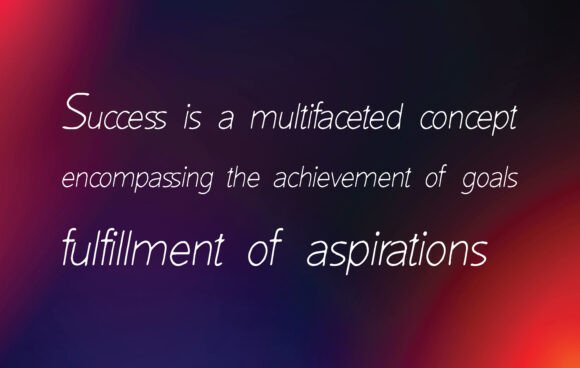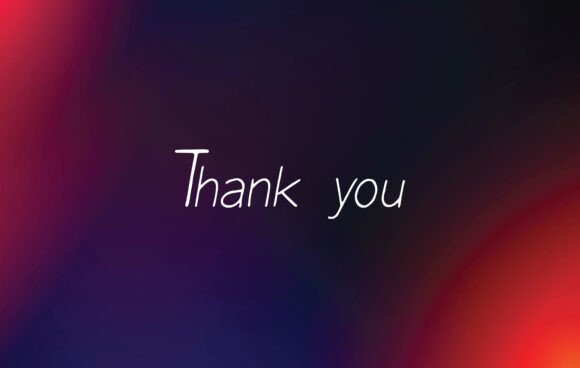
Gharial Font: Elevate Your Creative Projects with this Stunning Handwritten Font
Are you a designer, craftsperson, or creative enthusiast looking for a font that can take your projects to the next level? Look no further than the Gharial Font, a lovely and beautiful handwritten font that is sure to impress. With its unique and elegant style, Gharial has the potential to elevate your creative ideas to new heights, making it the perfect choice for a wide range of design applications.
The Beauty of Gharial Font
Gharial Font is a stunning example of handwritten typography, with a unique and elegant style that is sure to capture the attention of your audience. The font’s beautiful curves and lines create a sense of movement and fluidity, making it perfect for creating eye-catching logos, branding materials, and quotes. Whether you’re looking to add a touch of sophistication to your designs or simply want to create something that stands out from the crowd, Gharial Font is an excellent choice.
Why Choose Gharial Font?
So why choose Gharial Font over other fonts on the market? Here are just a few reasons why this font stands out:
- Unique and Elegant Style: Gharial Font has a distinctive and elegant style that is sure to set your designs apart from the crowd.
- Highly Versatile: This font can be used for a wide range of design applications, from logos and branding to quotes and social media graphics.
- Easy to Read: Despite its elegant style, Gharial Font is highly legible and easy to read, making it perfect for use in body text as well as headlines.
- Customizable: With Gharial Font, you can easily customize the font to suit your design needs, from adjusting the font size and style to adding your own unique touches.
Gharial Font is a perfect choice for designers and crafters who are looking to add a touch of elegance and sophistication to their projects. Whether you’re creating logos, branding materials, or social media graphics, this font is sure to impress. Here are just a few ways you can use Gharial Font in your designs:
- Logos and Branding: Use Gharial Font to create stunning logos and branding materials that will help your clients stand out from the crowd.
- Quotes and Social Media Graphics: Add a touch of elegance to your quotes and social media graphics with Gharial Font.
- Stationery and Packaging: Use Gharial Font to create beautiful stationery and packaging materials that will help your clients make a lasting impression.
- Experiment with Different Font Sizes and Styles: Don’t be afraid to experiment with different font sizes and styles to find the perfect look for your design.
- Pair with Other Fonts: Gharial Font pairs well with a wide range of other fonts, so don’t be afraid to get creative and try out different combinations.
- Add Your Own Unique Touches: With Gharial Font, you can easily add your own unique touches to your designs, from adjusting the font color and style to adding your own graphics and illustrations.
In conclusion, Gharial Font is a stunning handwritten font that is sure to elevate your creative projects to new heights. With its unique and elegant style, high versatility, and ease of use, this font is perfect for designers, crafters, and creative enthusiasts of all levels. Whether you’re looking to create eye-catching logos, branding materials, or social media graphics, Gharial Font is an excellent choice. So why wait? Download Gharial Font today and start taking your creative projects to the next level!